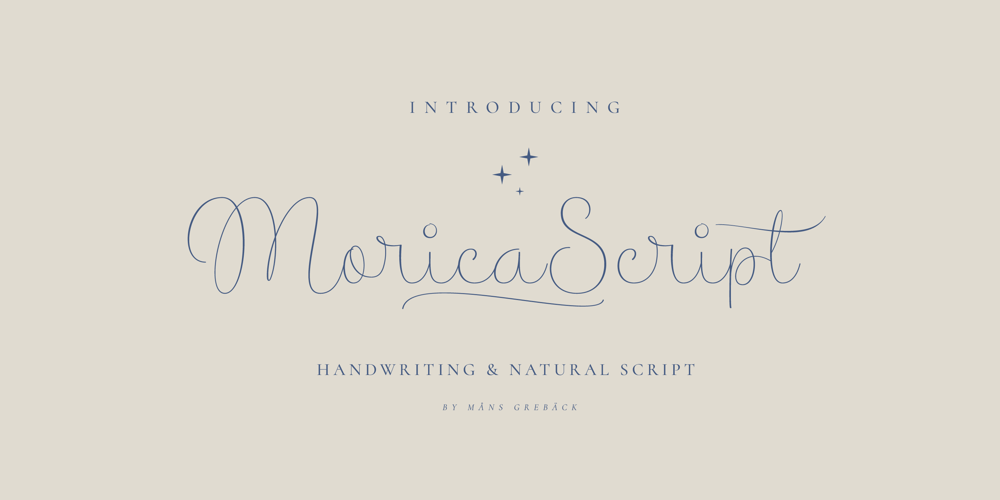
Morica Script Font Family was designed by Måns Grebäck and published by Mans Greback. Morica Script contains 4 styles and family package options. Morica Script, designed by Mans Greback, is a delicate and romantic handwritten typeface with a fine touch. Its thin lines and whimsical style bring a sense of elegance and charm to your creative projects. Perfect for wedding invitations, heartfelt letters, and intimate stationery, Morica Script embodies the beauty of naive handwritten communication.